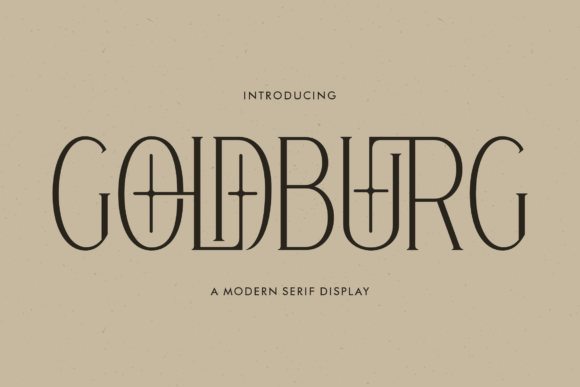
Introducing Goldburg Font: The Epitome of Elegance and Luxury for Your Creative Projects
Adorn your designs with the captivating allure of Goldburg Font, a masterpiece crafted by Storytype Studio. This modern and classic serif typeface transcends time, embodying a unique style that radiates sophistication and charm. Goldburg is not just a font; it's an artistic expression that elevates your projects to new heights of visual appeal.
Immerse yourself in the world of fashion, luxury, and elegance with Goldburg Font. Its timeless beauty graces logos with an air of distinction, transforming them into emblems of excellence. Unleash your creativity in book or movie title designs, where Goldburg's presence commands attention and captivates audiences. Let your fashion brand shine with a touch of Goldburg's allure, attracting customers with its undeniable charm.
Goldburg Font is a versatile companion for magazines, clothing designs, and lettering projects. Its refined curves and delicate details add a touch of sophistication to every element, making your creations stand out from the ordinary. Elevate your quotes with Goldburg's eloquence, transforming them into visual masterpieces that resonate with your audience.
With Goldburg Font at your fingertips, you'll discover a world of endless possibilities. Its versatility extends to social media posts, posters, and website designs, where its presence adds a touch of class and refinement. Goldburg Font is the ultimate choice for designers seeking to create a lasting impression, leaving their mark on the world with timeless elegance.
Embrace the allure of Goldburg Font today and embark on a creative journey where sophistication meets charm. Let your designs blossom with the beauty and grace of this extraordinary typeface, captivating your audience with its timeless appeal.